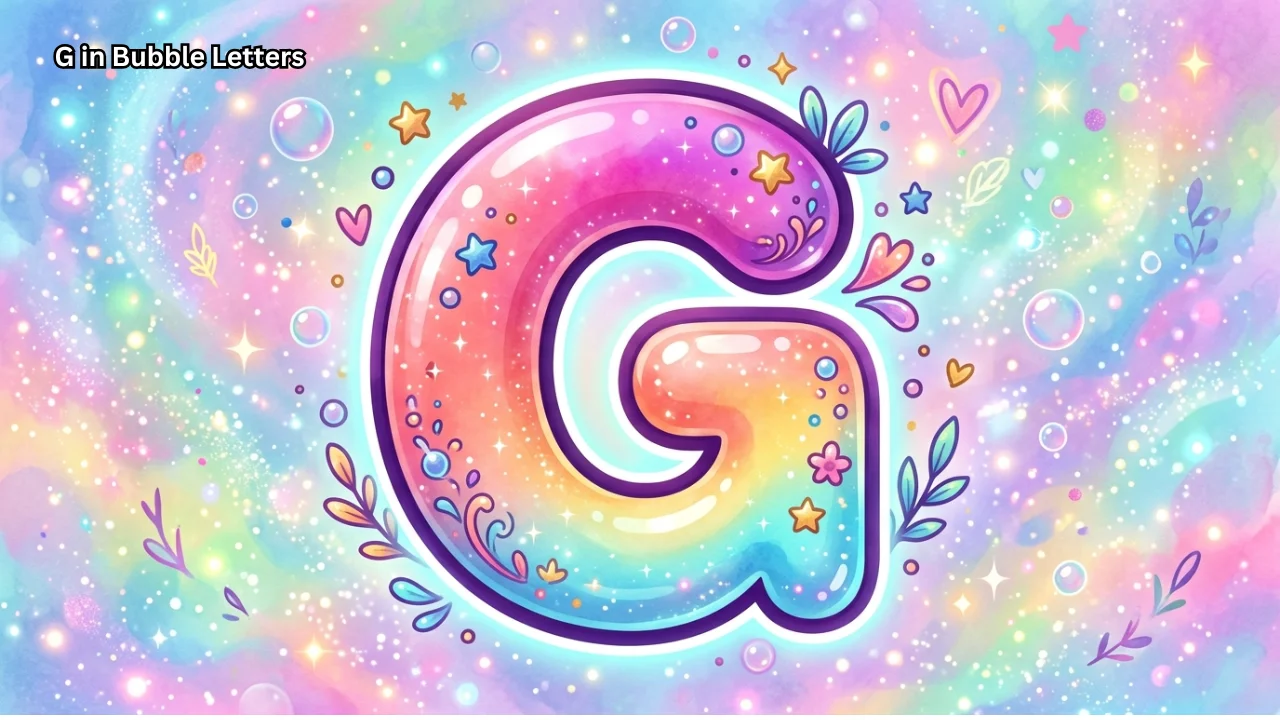
G in Bubble Letters Easy Step-by-Step Guide for Beginners
If you want to improve your handwriting or create fun designs, learning how to draw g in bubble letters is a great place to start. Bubble letters look soft, rounded, and bold, which makes them perfect for art, school projects, posters, and social media designs. This guide explains everything in a clear and simple way, so you can learn fast and use it right away.
What Are G in Bubble Letters?
Bubble letters are a style of writing where each letter looks thick, round, and puffy, like a bubble. Instead of sharp edges, these letters use smooth curves. This style is popular in graffiti art, doodling, and creative typography.
When you draw g in bubble letter, you turn a normal letter into a playful and eye-catching shape. It feels more alive and expressive compared to regular writing.
Why Learn G in Bubble Letter?
Learning this style gives you many benefits:
• It improves creativity and drawing skills
• It helps you create unique designs
• It makes your writing stand out
• It is easy and fun to practice
The letter “G” is especially interesting because it has curves and loops, which look great in bubble style.
Basic Structure of the Letter G
Before you draw g in bubble letter, you need to understand its basic shape. The lowercase “g” usually has:
• A round top part (like a circle)
• A tail or loop at the bottom
The uppercase “G” looks different and is more like a big curved shape with a small line inside.
Step-by-Step Guide
Follow these simple steps to draw a perfect bubble letter “g”:
Step 1: Draw the Basic Shape
Start with a light sketch of a small circle. This forms the top part of your letter.
Step 2: Add the Tail
Draw a curved line going down from the circle. Then loop it back up slightly to form the tail.
Step 3: Make It Thick
Now, draw a second line around your sketch. Keep space between the lines to create thickness. This is what gives the bubble effect.
Step 4: Smooth the Edges
Round all corners and edges. Make sure there are no sharp lines. Everything should look soft and smooth.
Step 5: Erase Inner Lines
Remove the extra sketch lines inside. You should now see a clean bubble letter.
Step 6: Add Style
You can add shadows, highlights, or patterns to make your g in bubble letter look more creative.
Uppercase vs Lowercase
Both styles look different, so it helps to understand them clearly.
FeatureUppercase GLowercase G
ShapeBig and open curveRound with tail
DifficultyEasyMedium
StyleBold and simpleMore decorative
UseTitles, headingsCreative designs
Lowercase g in bubble letter usually looks more artistic because of the loop, while uppercase looks clean and bold.
Tips to Make Your Bubble Letters Look Better
To improve your results, follow these important tips:
• Keep all lines smooth and rounded
• Maintain equal thickness on all sides
• Use light pencil first, then outline with pen
• Practice slowly for better control
Consistency is key. The more you practice drawing g in bubble letter, the better your shapes will look.
Common Mistakes to Avoid
Many beginners make small mistakes that affect the final look. Avoid these:
• Making lines too thin or uneven
• Drawing sharp corners instead of curves
• Skipping the sketch step
• Rushing the process
Take your time and focus on smooth curves. Bubble letters should always feel soft and balanced.
Creative Styles
Once you learn the basic form, you can try different styles:
1. 3D Bubble Letters
Add depth by drawing a shadow behind the letter. This makes it look like it is popping out.
2. Graffiti Style
Make the letter more dynamic with extra lines, arrows, or bold edges.
3. Cartoon Style
Add eyes or facial expressions to turn your g in bubble letters into a fun character.
4. Pattern Fill
Fill the letter with patterns like stripes, dots, or zigzags.
These styles help you make your designs unique and creative.
Tools You Can Use
You do not need expensive tools to start. Simple items work well:
ToolPurpose
PencilSketching base shape
EraserFixing mistakes
MarkerBold outlines
Colored pensAdding color and style
PaperPractice surface
You can also use digital apps if you prefer drawing on a tablet.
Where Can You Use Bubble Letters?
Learning g in bubble letter is useful in many areas:
• School projects and posters
• Social media graphics
• Greeting cards
• Art and doodling practice
• Logo ideas and design work
This skill is not just fun, it is also practical.
Practice Exercises for Beginners
To improve faster, try these simple exercises:
• Draw the letter “g” five times daily
• Practice both uppercase and lowercase forms
• Experiment with different thickness levels
• Try adding colors and shadows
Regular practice helps you build muscle memory and control.
How to Add Color and Effects
Adding color makes your design more attractive. Follow these ideas:
• Use bright colors for a fun look
• Add a shadow using a darker shade
• Leave small white areas for highlights
• Blend colors for a gradient effect
These small details can make your g in bubble letter look professional.
SEO and Design Connection
You may wonder how this topic connects to SEO. Many people search for creative lettering styles online. If you create content or images using g in bubble letter, you can attract users interested in:
• Typography design
• Hand lettering
• Drawing tutorials
• Creative writing styles
Final Thoughts
Learning how to draw g in bubble letters is simple, fun, and useful. You do not need advanced skills to start. Just follow the steps, practice regularly, and keep your lines smooth and rounded. Over time, you will develop your own style and confidence.
Bubble letters allow you to express creativity in a unique way. Whether you use them for art, school, or design, they always make your work stand out. Start practicing today, and you will see improvement very quickly.